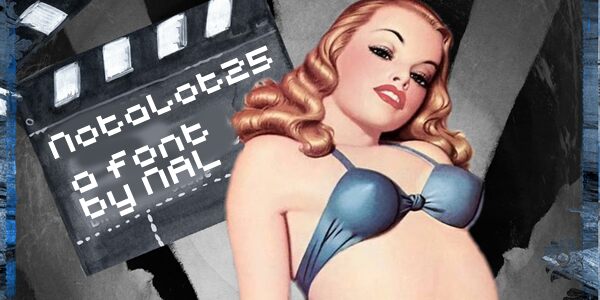
Notalot25 by NAL of FontStruct is a free pixelated display font with tall, widely spaced letterforms and an early computer-screen character. Its uneven widths, open shapes, and abrupt square turns make the alphabet feel experimental rather than standardized.
Retro computing is the clearest reference, making it well suited to game interfaces and electronic music graphics. The sparse, mechanical drawing also fits technology posters. It can extend into apparel and event branding when the lettering needs to resemble a custom digital readout.